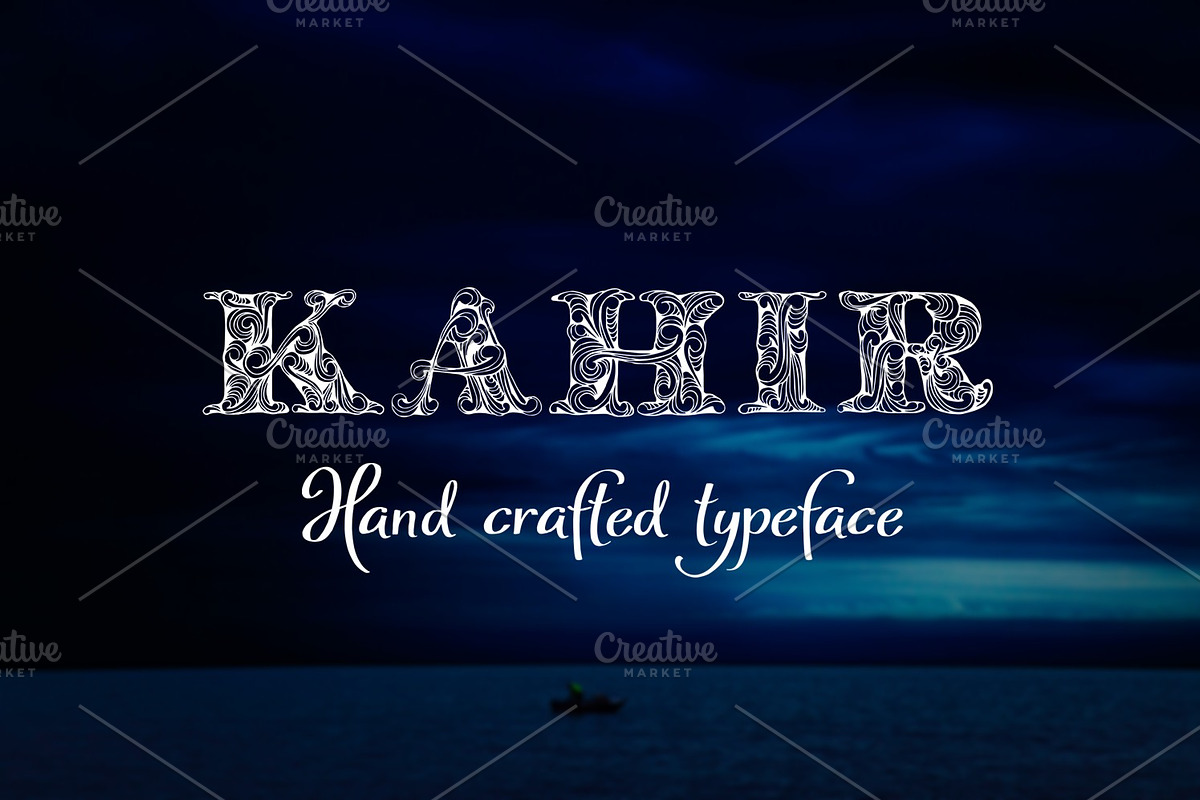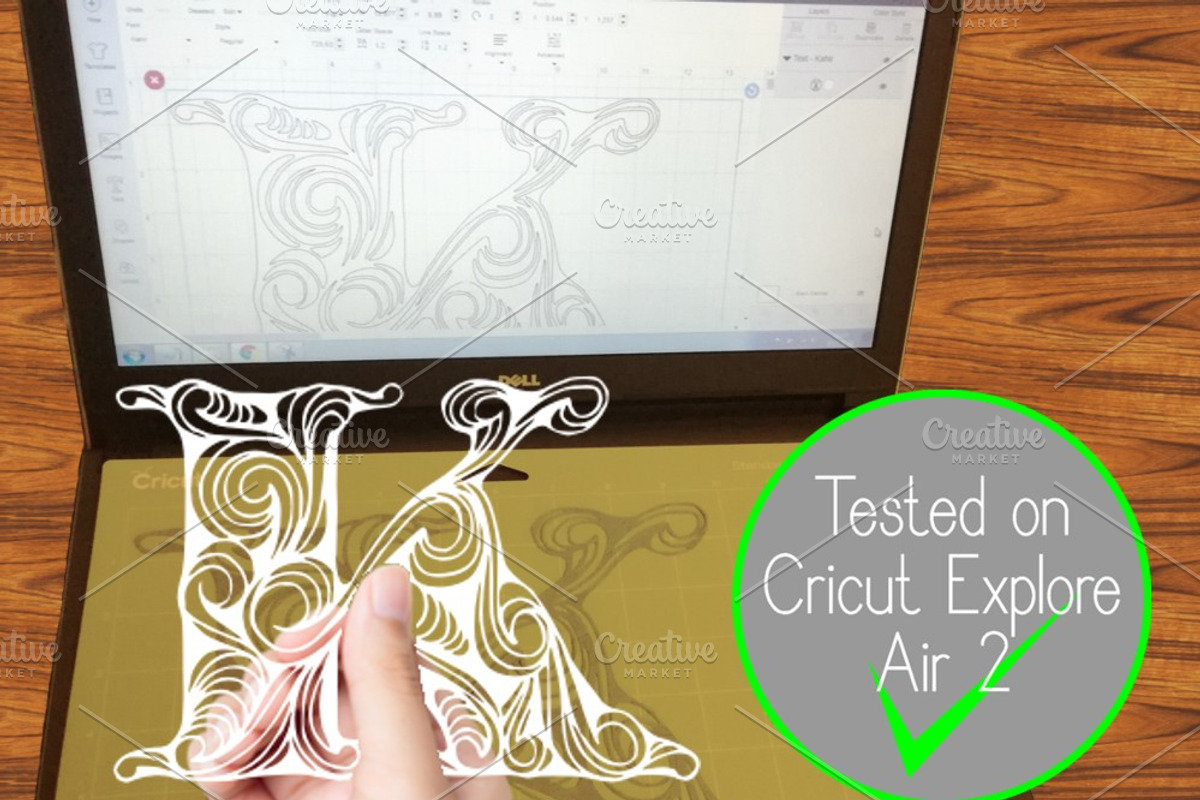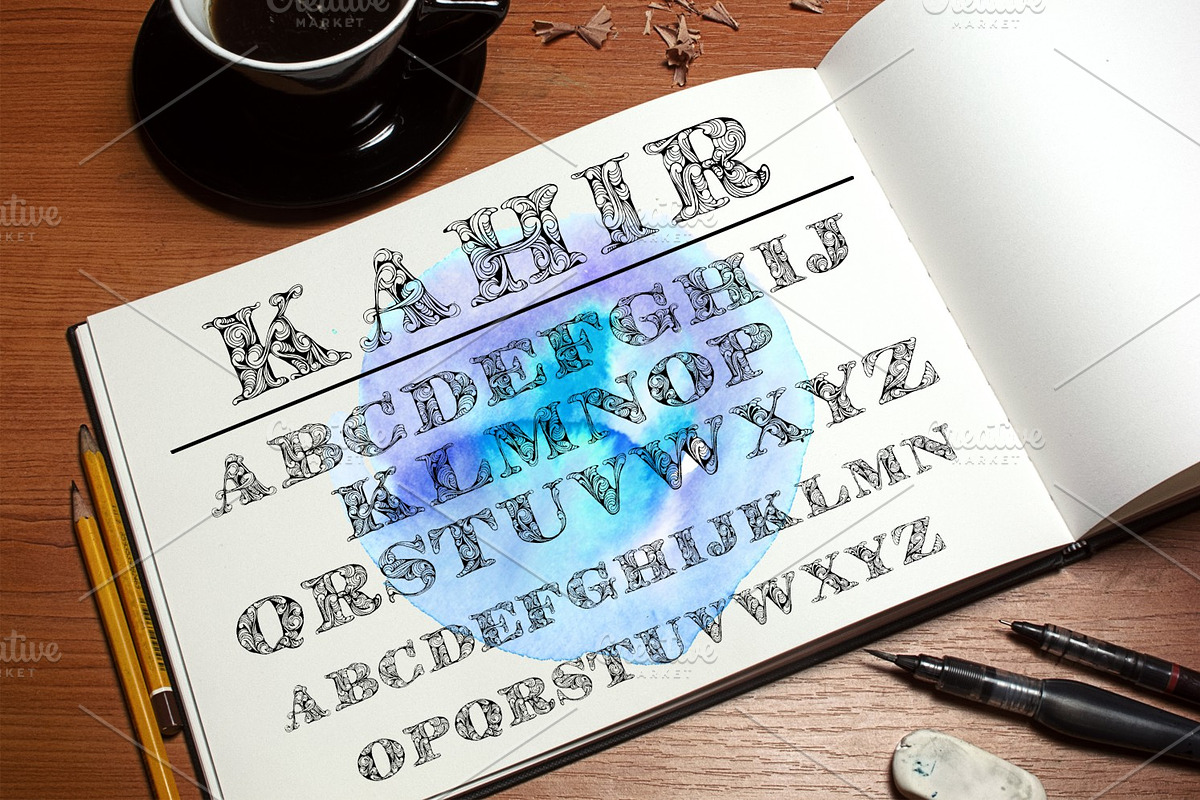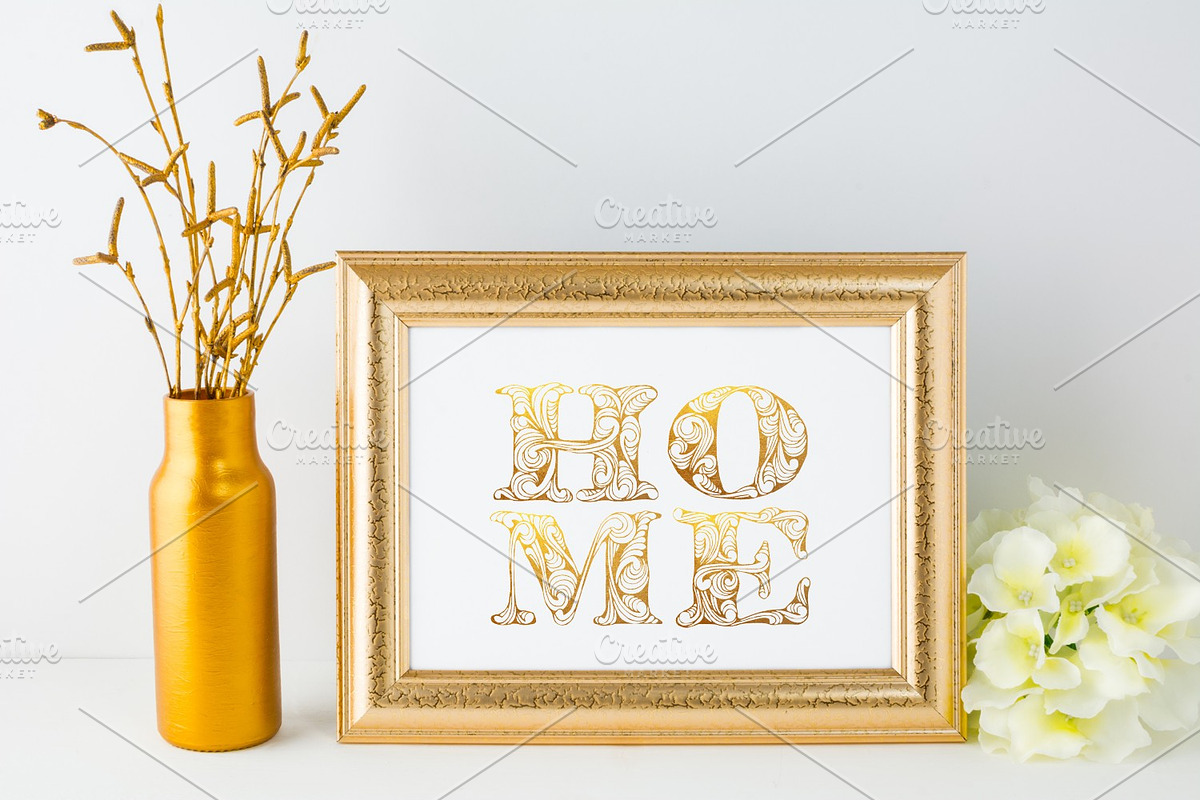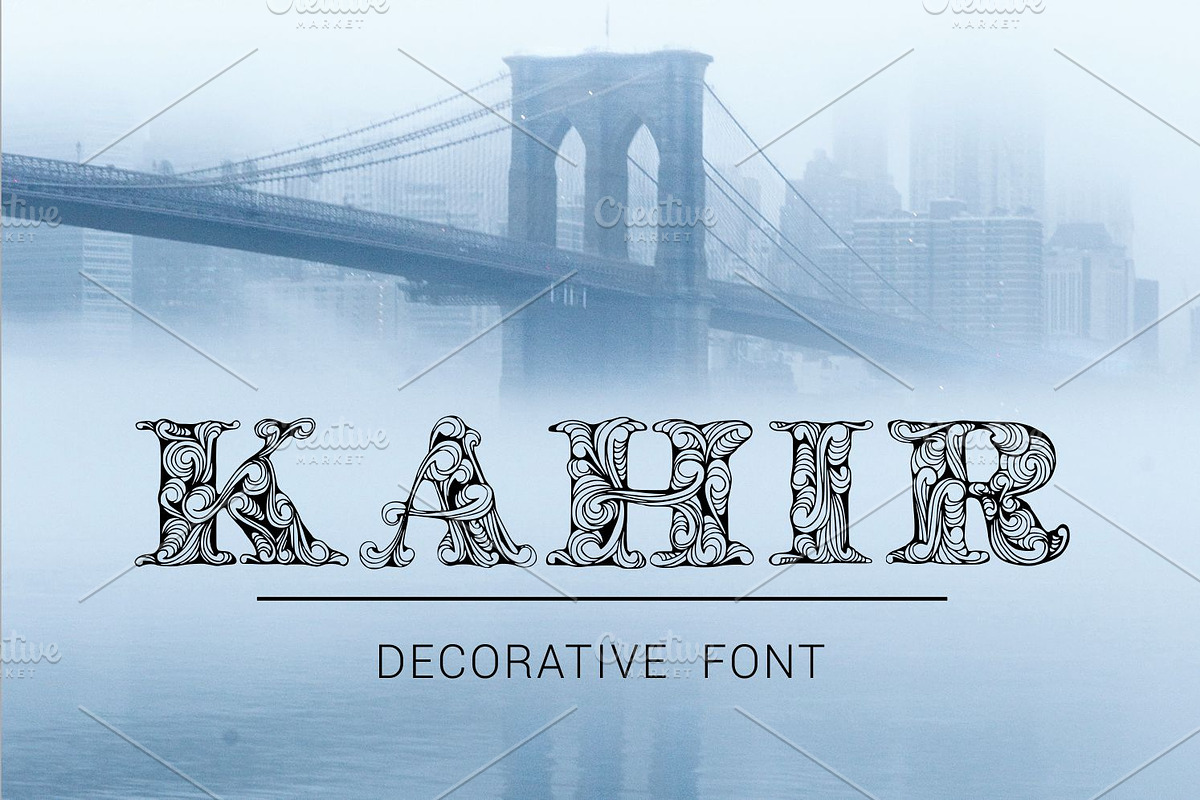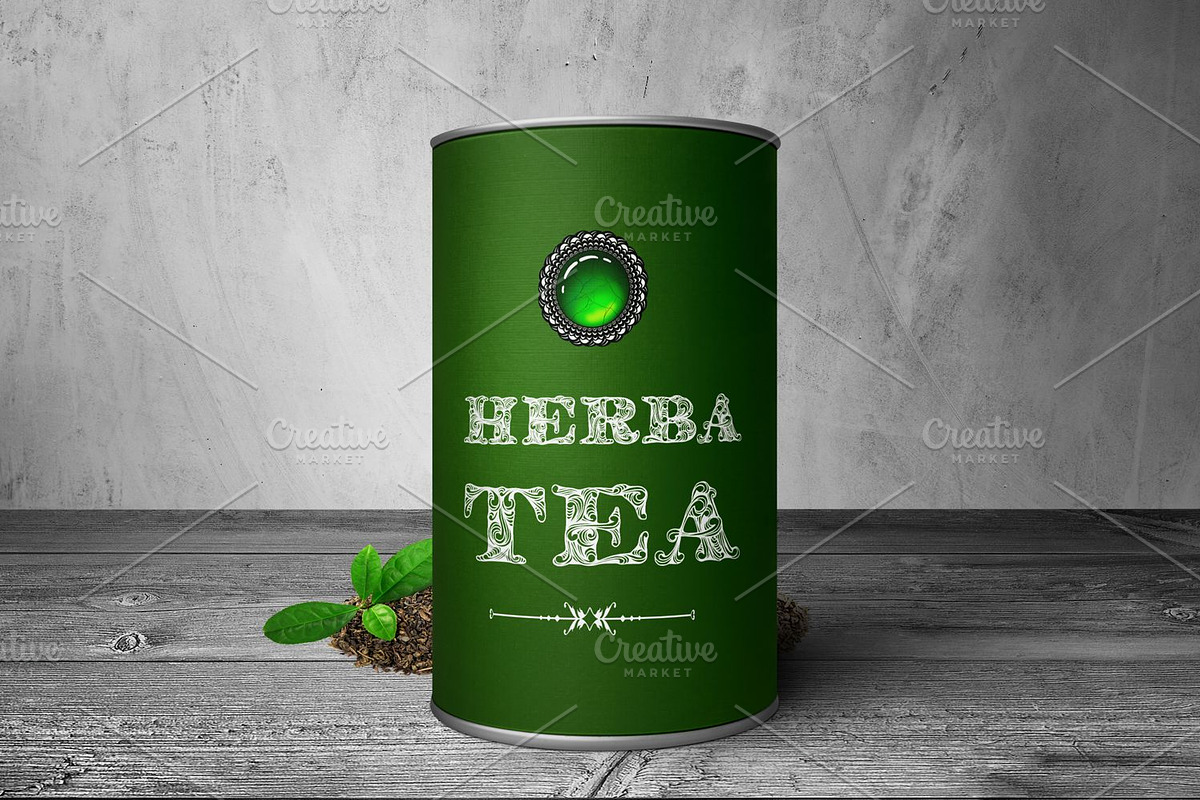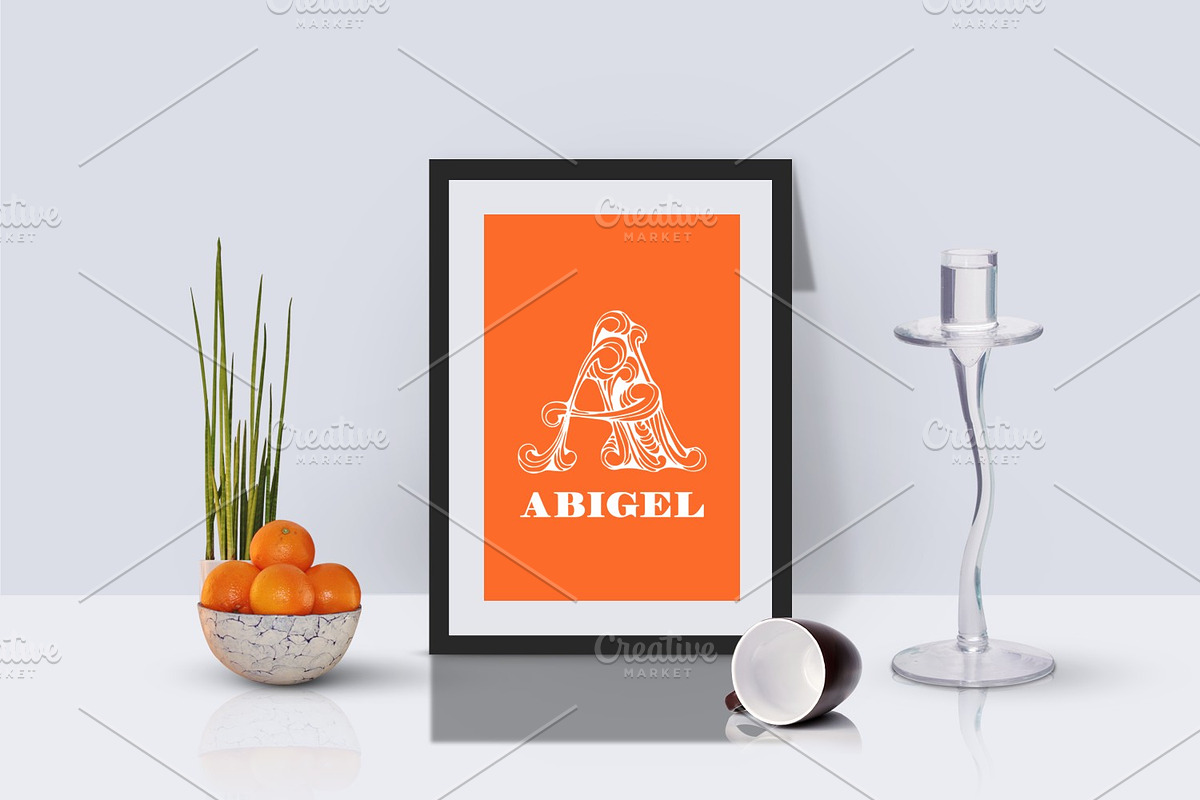
Kahir Font
Introducing Kahir Hand Drawn decorative font.
Prepared for Cricut Design Space, tested on Cricut Explore Air 2.
Capital letters and small caps only.
Great for initials, monogram embroidery, invitations, menus, cards, titling, signage, poster, flyers or t-shirts design, headlines, etc.
Why Kahir Font is worth a look
Kahir Font by Digital Typeface Studio fits naturally into Branding, posters, packaging, typography.